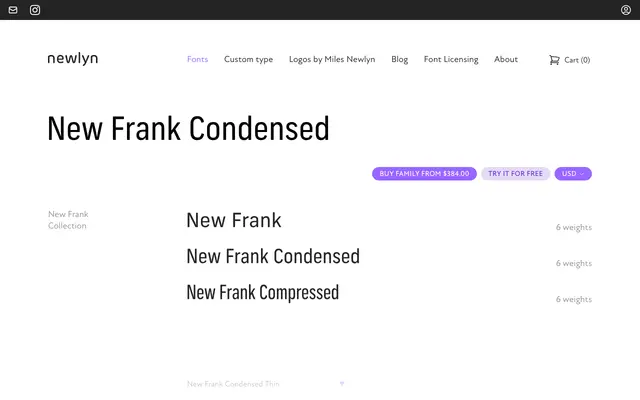
New Frank Condensed Italic
A condensed grotesque sans offered in six weights with matching italics, forming part of the broader New Frank collection from Newlyn.
New Frank Condensed sits within a three-width family alongside the standard and compressed cuts, each available in six weights from Thin to ExtraBold. The condensed proportion suits tighter editorial columns, headlines and display settings where vertical economy matters. Italic styles accompany all six weights, giving the family considerable range for mixed typographic hierarchies.
New Frank Condensed is a condensed grotesque sans-serif, part of a wider family spanning regular, condensed and compressed widths across six weights with matching italics.